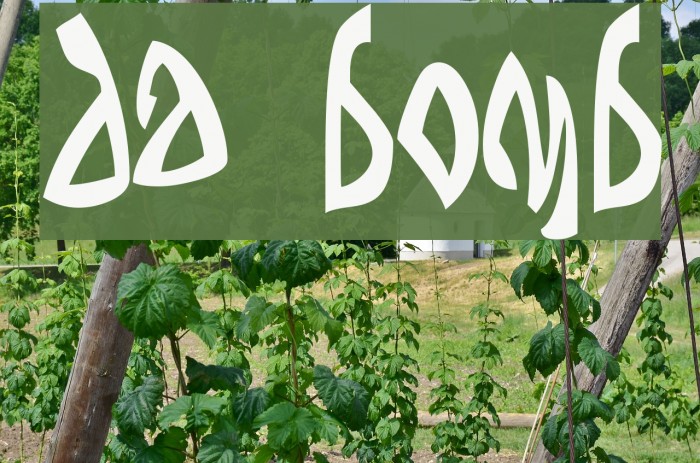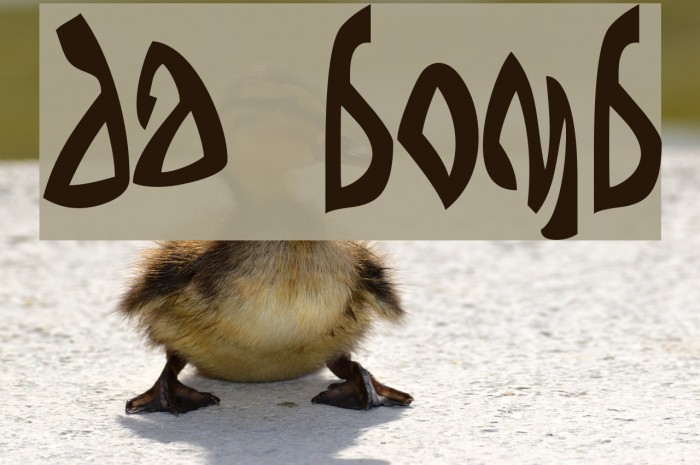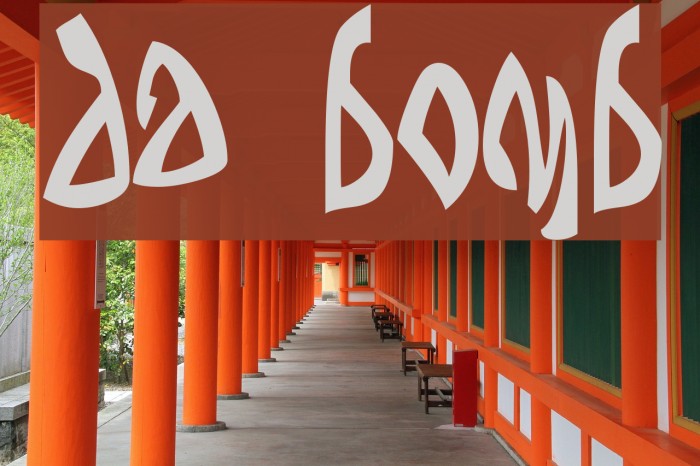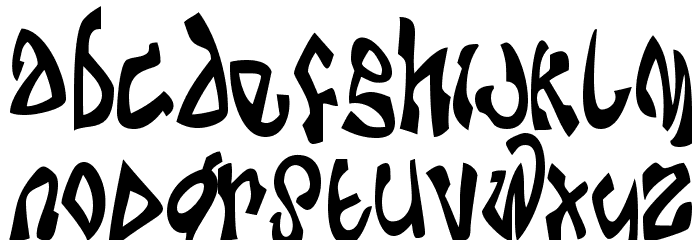
Da Bomb Font
Da Bomb Description
This font features a bold and dynamic style with a unique, graffiti-inspired aesthetic. The characters are highly stylized, with exaggerated curves and sharp angles that create a sense of movement and energy. The uppercase and lowercase letters share a consistent design language, each character exhibiting a playful yet edgy personality. The numbers and special characters maintain this theme, ensuring a cohesive look across all text elements. The font's distinctiveness makes it ideal for projects that require a strong visual impact.
| Overall Style | Modern, Urban |
| Use Case | Logos, Posters, Album Covers |
| Proposed Projects | Ideal for street art designs, music album covers, urban-themed posters, and edgy branding projects. |